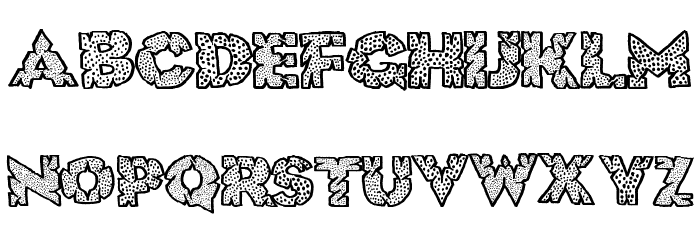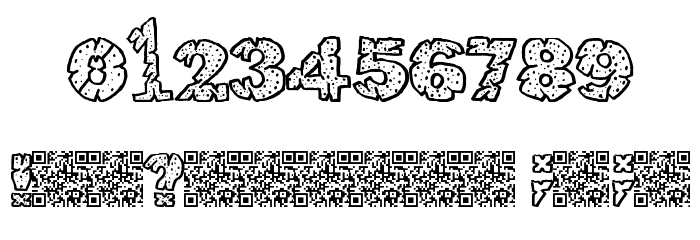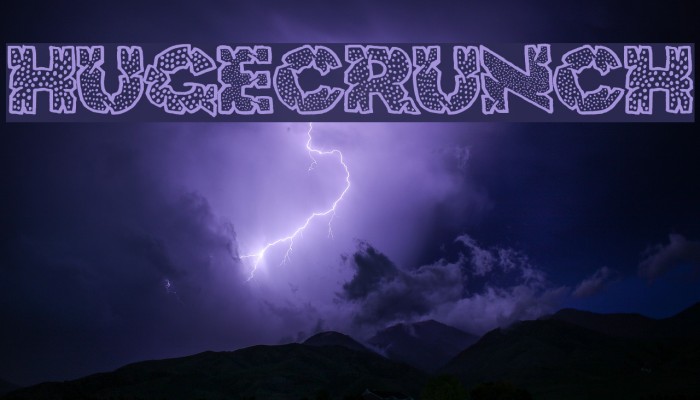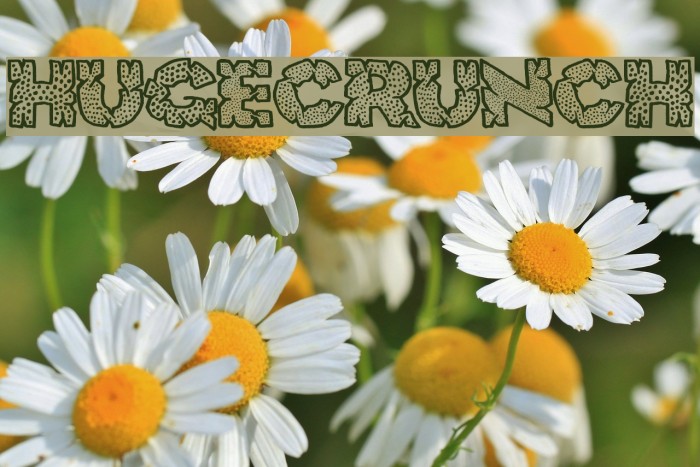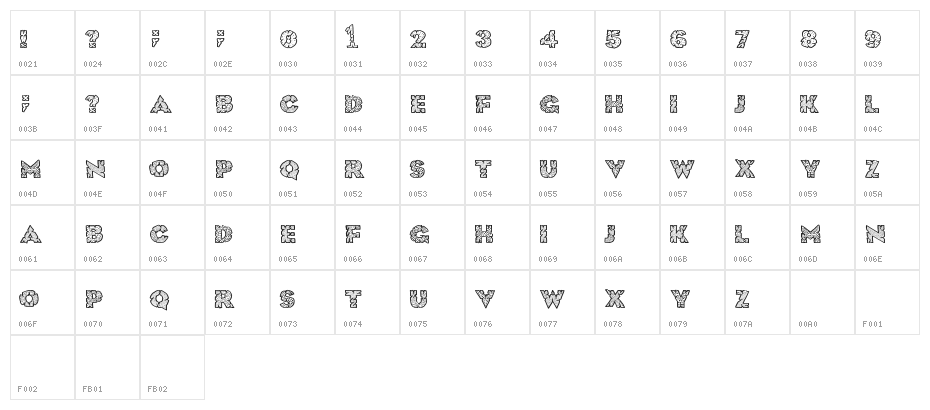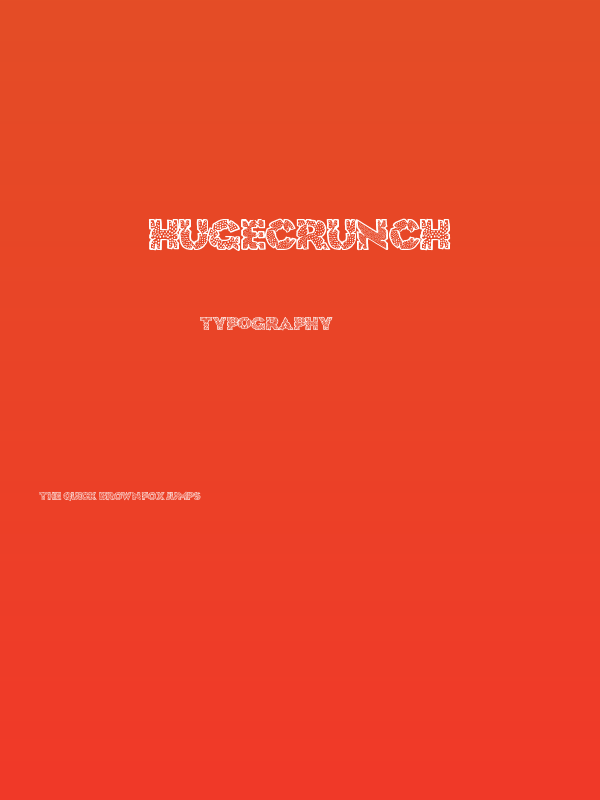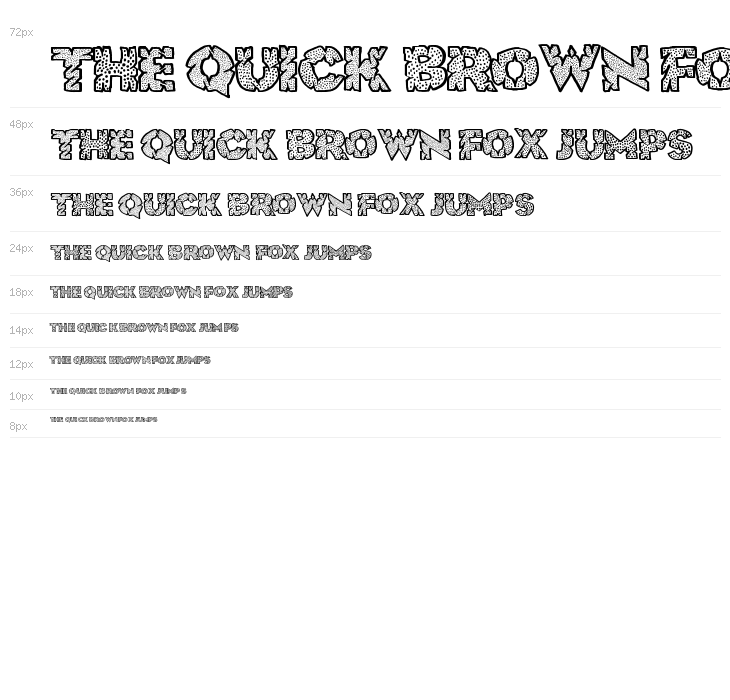
HugeCrunch Font
This font features a bold and playful design with a comic-like appearance. Each character is filled with a pattern of dots and irregular shapes, giving it a textured and dynamic look. The letters are uppercase and have a chunky, robust form that stands out, making it ideal for attention-grabbing designs. The numbers and special characters follow the same stylistic approach, ensuring consistency across all elements. The overall style is whimsical and fun, perfect for projects that require a lively and engaging typeface.
A bold, playful font with a comic-like, textured design.
- Proposed Projects: Ideal for children's books, comic strips, playful branding, and party invitations.